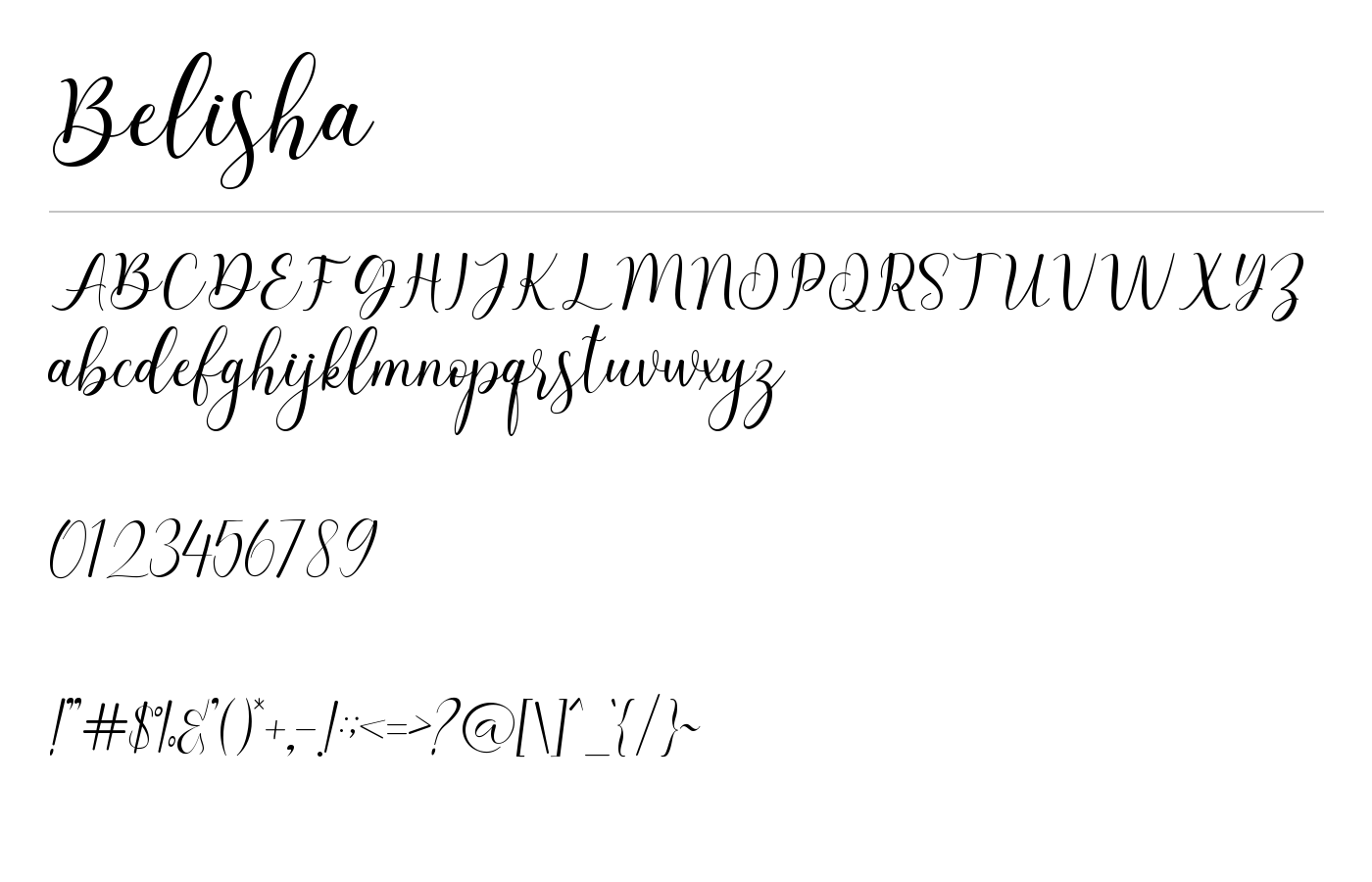
Belisha is an elegant script font characterized by its delicate, flowing strokes and graceful, slightly condensed letterforms. Its fine lines and smooth, calligraphic style make it perfect for sophisticated branding, wedding invitations, and stylish editorial projects where a touch of refinement and personality is desired. This font shines in display use, adding charm and elegance to any design that seeks a handwritten, luxurious feel.
Belisha Font
About Belisha Font
| Font family | Belisha Font |
| Designer | (MJB Letters). 2020. (Muhammad Mujibulloh) |